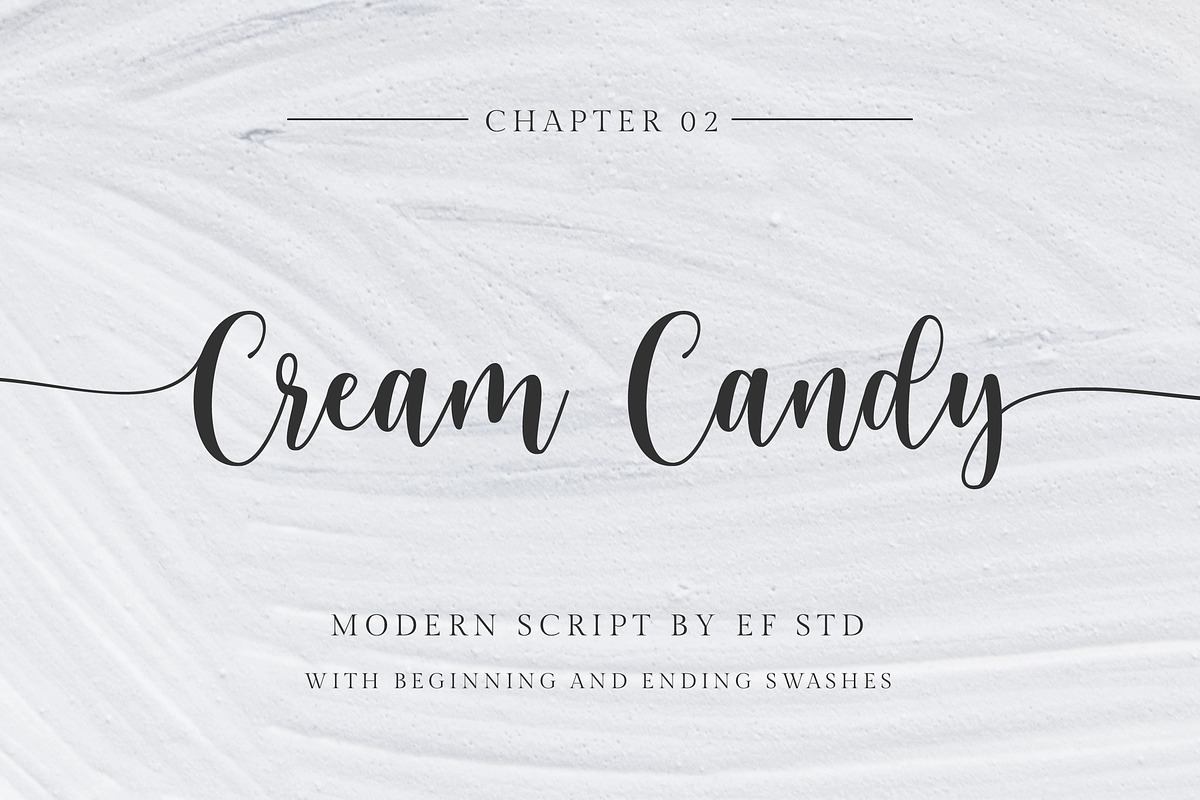
Cream Candy – Modern Script Font Free Download is a sweet and stylish handwritten typeface that combines soft, flowing curves with a playful modern flair. Perfect for logos, branding, social media graphics, product packaging, invitations, and lifestyle content, this font adds a charming and friendly touch to any design.
With its smooth brush strokes and bouncy baseline, Cream Candy – Modern Script Font Free Download includes a full set of alternates and ligatures, allowing for beautifully customized, expressive typography. It’s ideal for creative projects that call for personality, warmth, and a dash of sweetness.